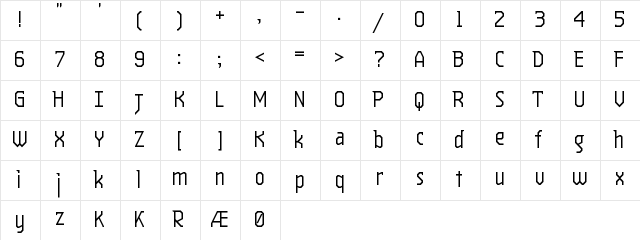
fs Intaglish Regular
| Designer | thalamic |
Design Context for fs Intaglish Typeface
fs Intaglish offers clean, dependable letterforms without strong stylistic allegiance, making it a practical choice for designers who need flexibility.